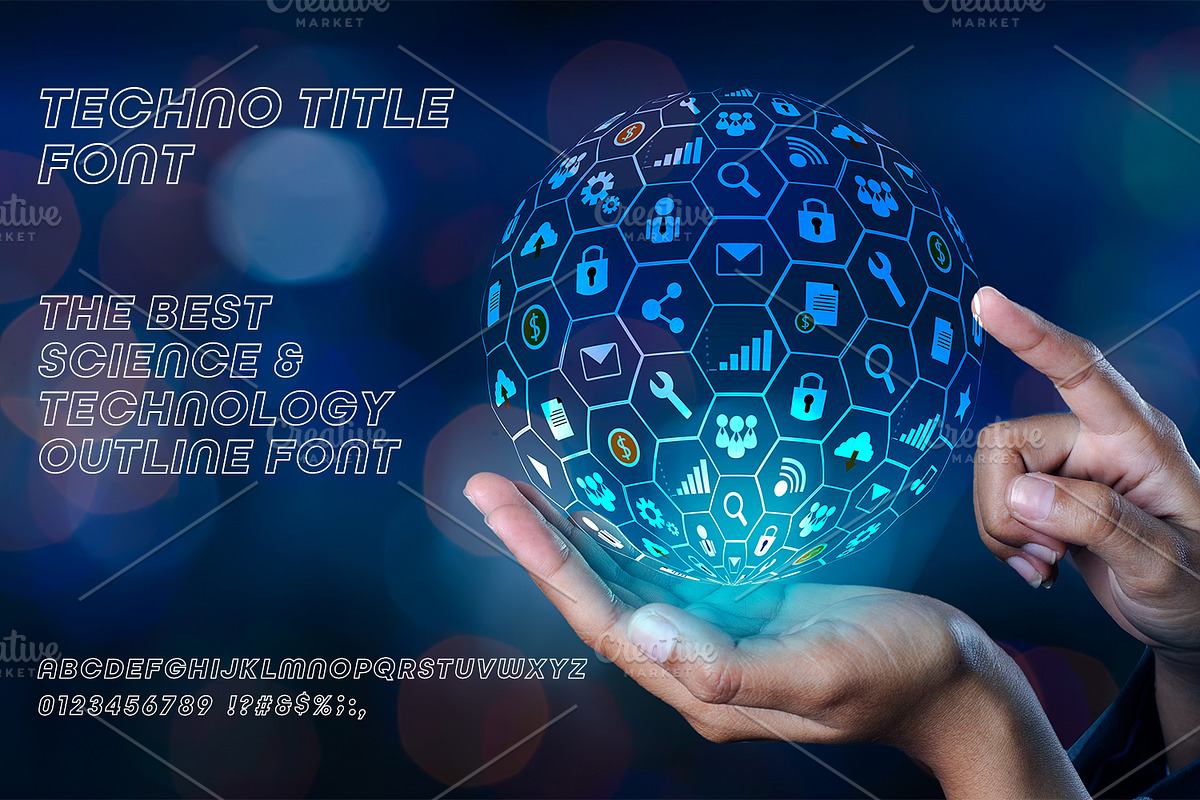
Techno Title Font Free Download
Techno Title Font Free Download is a futuristic and dynamic display typeface designed for projects that need a high-tech, modern feel. With its geometric shapes and sleek design, this font is perfect for tech branding, gaming graphics, digital interfaces, product titles, and anything that demands a cutting-edge, bold aesthetic.
The font’s clean lines and angular letterforms convey strength, innovation, and the future, making it ideal for creating high-impact titles and headings. Whether you're working on a tech product launch, a sci-fi movie poster, or a modern gaming logo, Techno Title Font brings a futuristic flair to your typography.